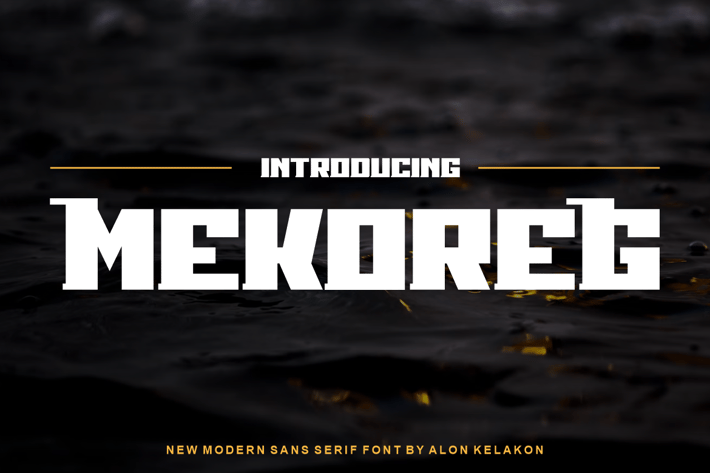
Mekoreg Font
Mekoreg Font is unique . Ready to use for your design like labeling, clothing, movie sceen, poster, movie title, gigs, album covers, logos, and much more.